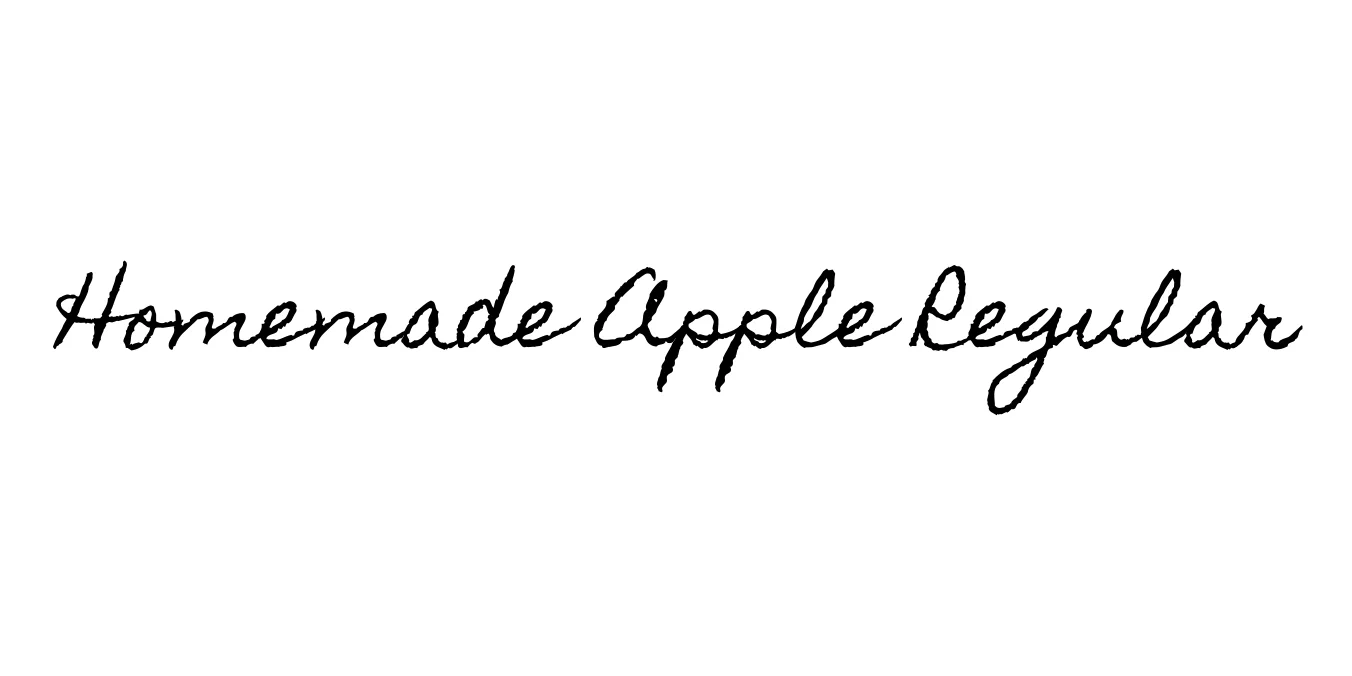
Homemade Apple Regular
Designed by Font Diner
| Font Name | Homemade Apple |
| Category | Handwriting / Script |
| Designer | Font Diner |
Homemade Apple Regular is a charming, casual script font that mimics the authentic hand-lettering often found on a quick note or a family recipe card. Created by the renowned studio Font Diner, this typeface captures a sense of nostalgia and personal warmth that is frequently missing in digital typography. Its fluid, slightly irregular strokes and rhythmic character spacing give it a genuine human feel, making it a standout choice for projects that require a personal touch.
The font has gained significant popularity within the Google Fonts library due to its versatility and readability in informal contexts. Whether used for a digital journal, a boutique bakery logo, or organic social media graphics, Homemade Apple provides an approachable and friendly aesthetic. It is distributed under the Apache License, which encourages wide usage across both personal and professional creative platforms.
Homemade Apple Regular Best Uses
Ideal for artisanal cafes, bakeries, and handcrafted product labels.
Perfect for wedding invitations, personal greeting cards, and handwritten letters.
Excellent for authentic-looking quotes, blog headers, and story overlays.